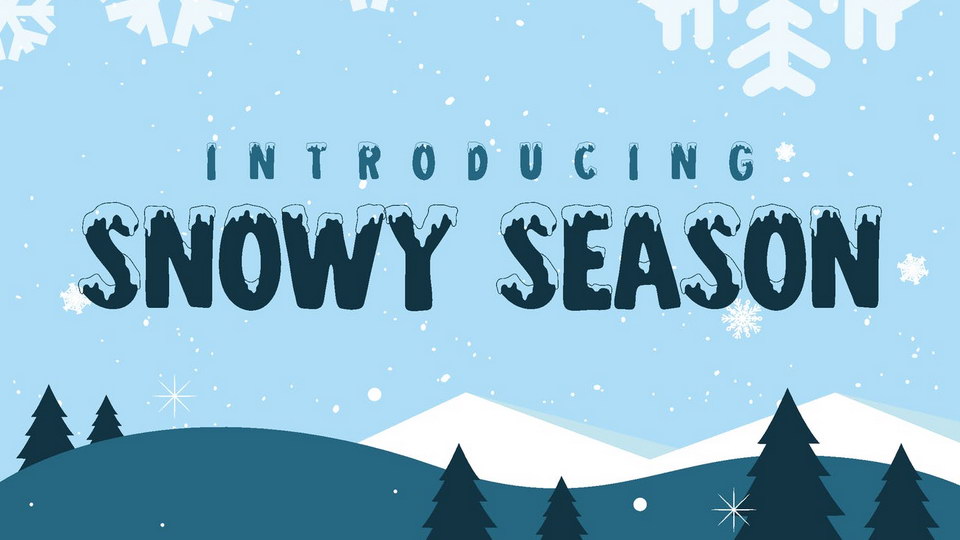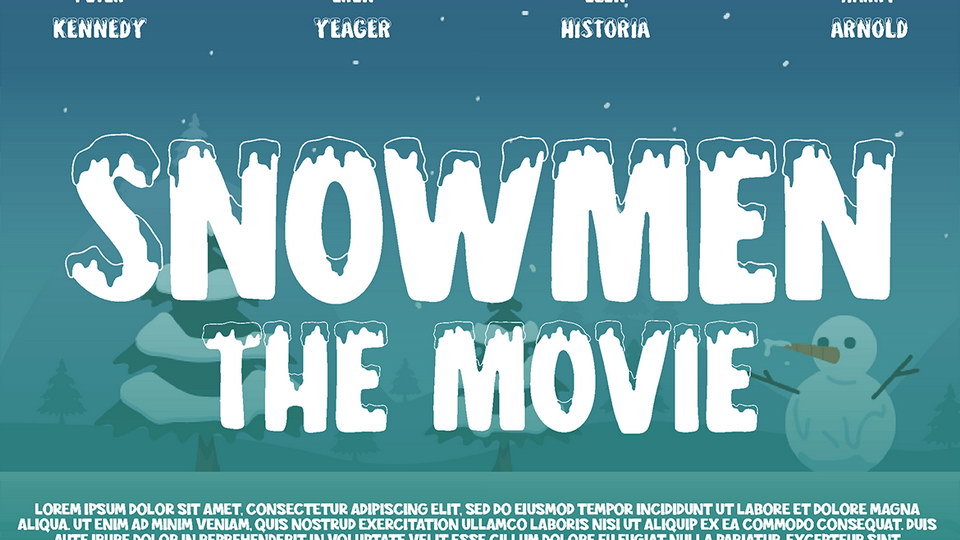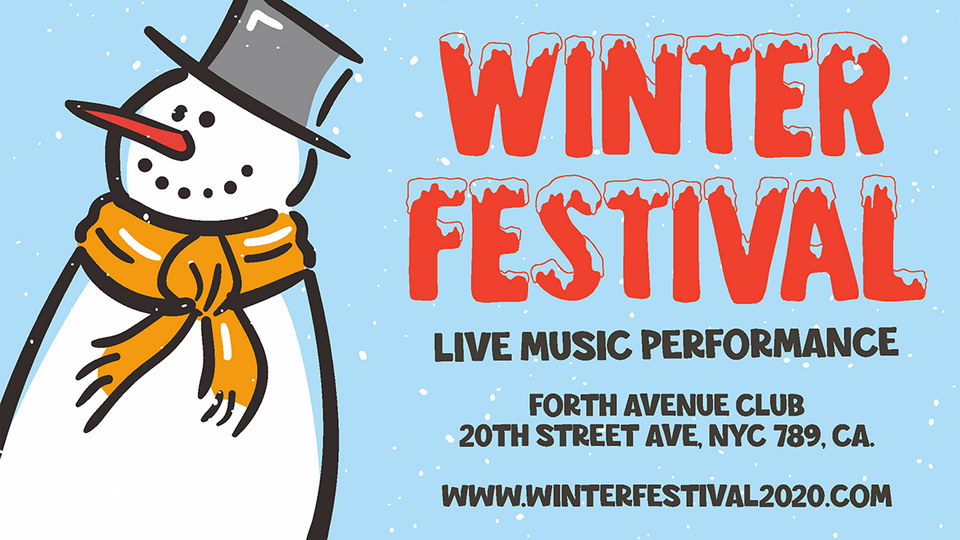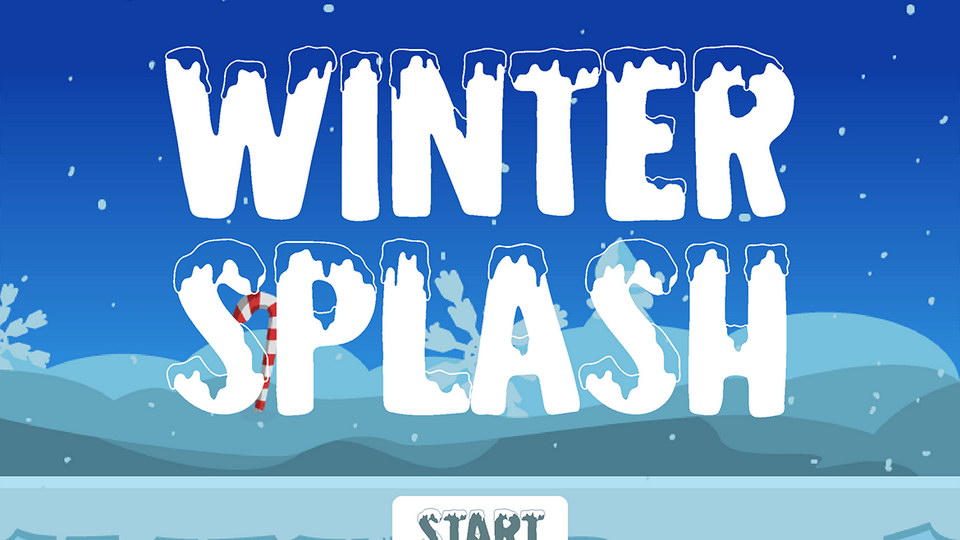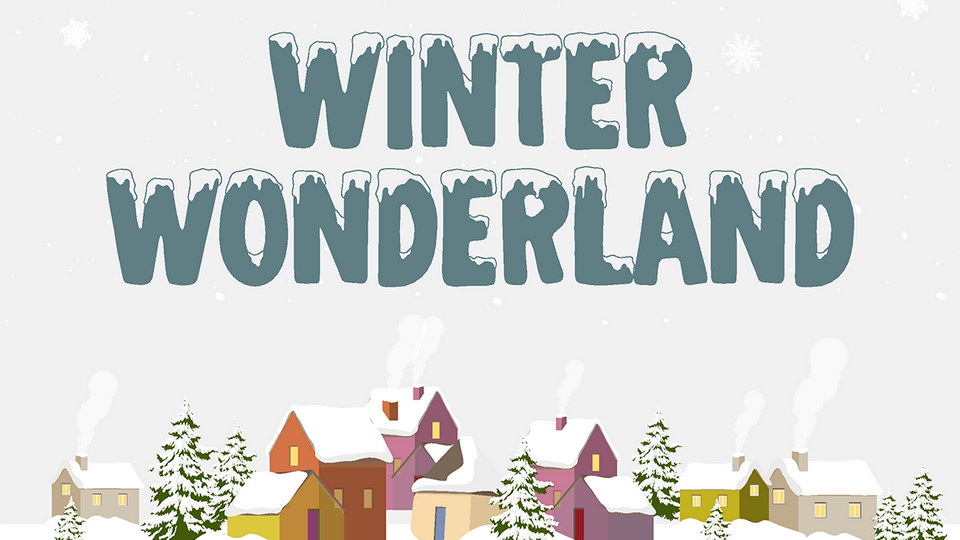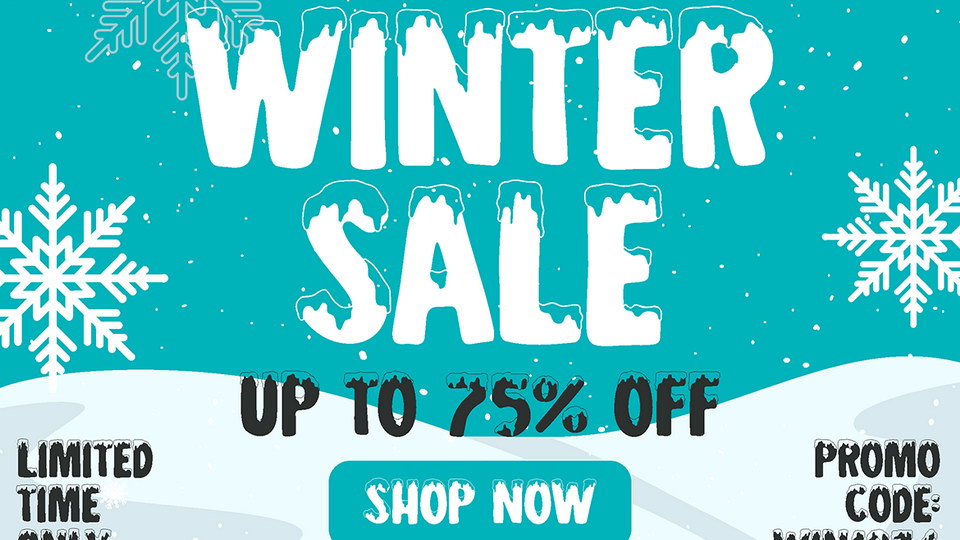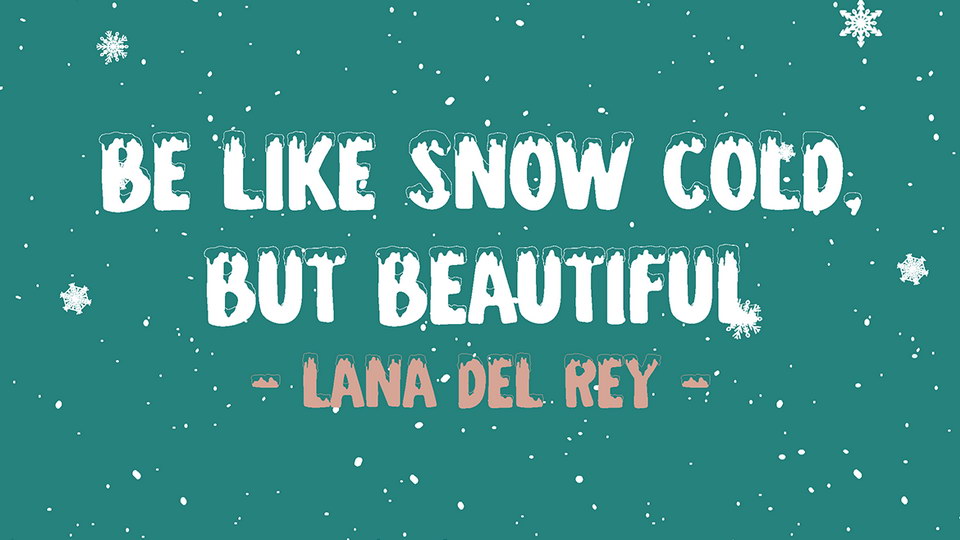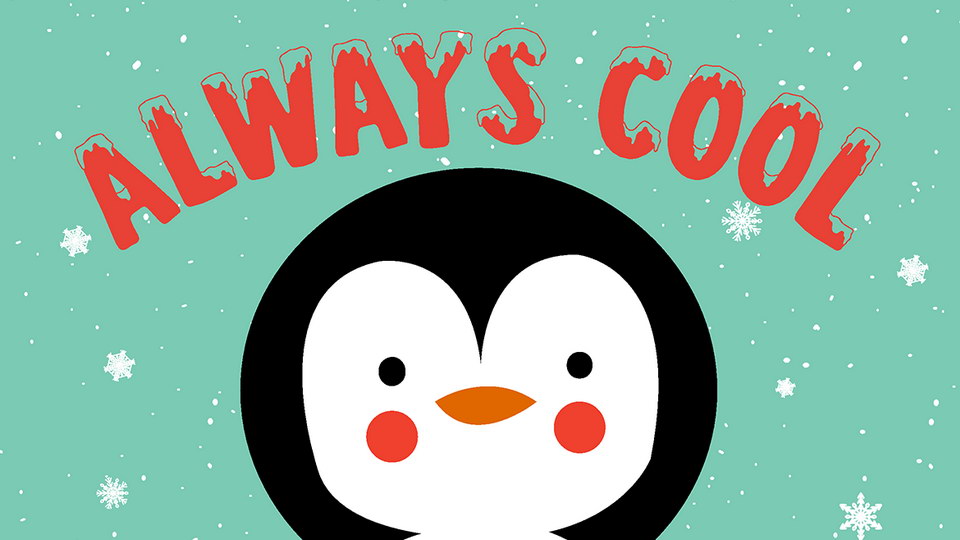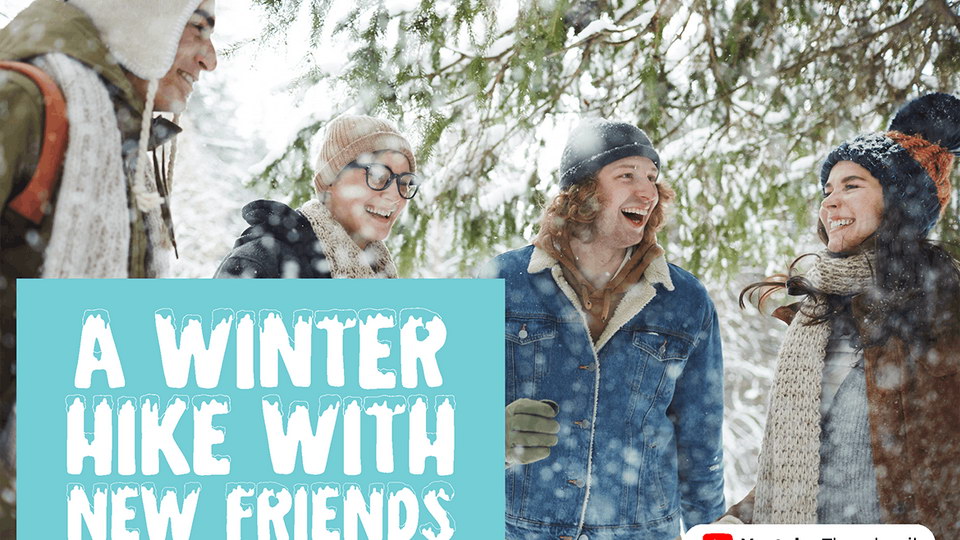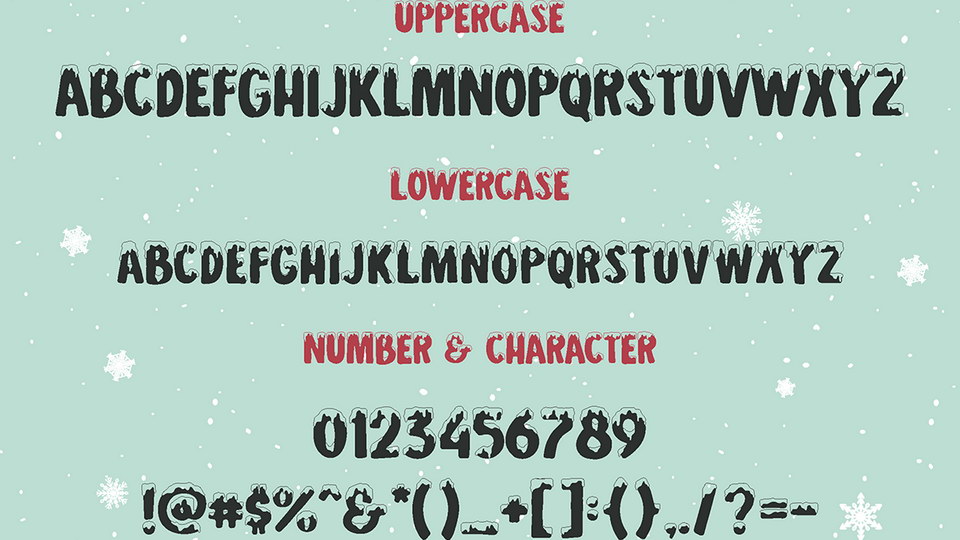
Holiday and snow is coming. The joy of watching snow flakes coming down from the sky, the piles on top of everything. It is WHITE ! it is cold…but also warm to our heart.
Suit perfectly for Snowy online games, poster, movie title, fast food menu, magazine, youtube covers, youtube thumbnails, social media page covers and so on…